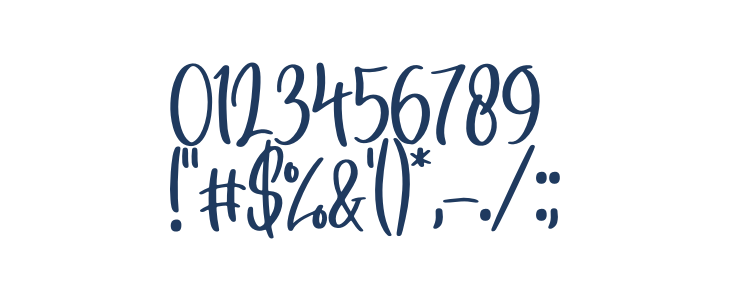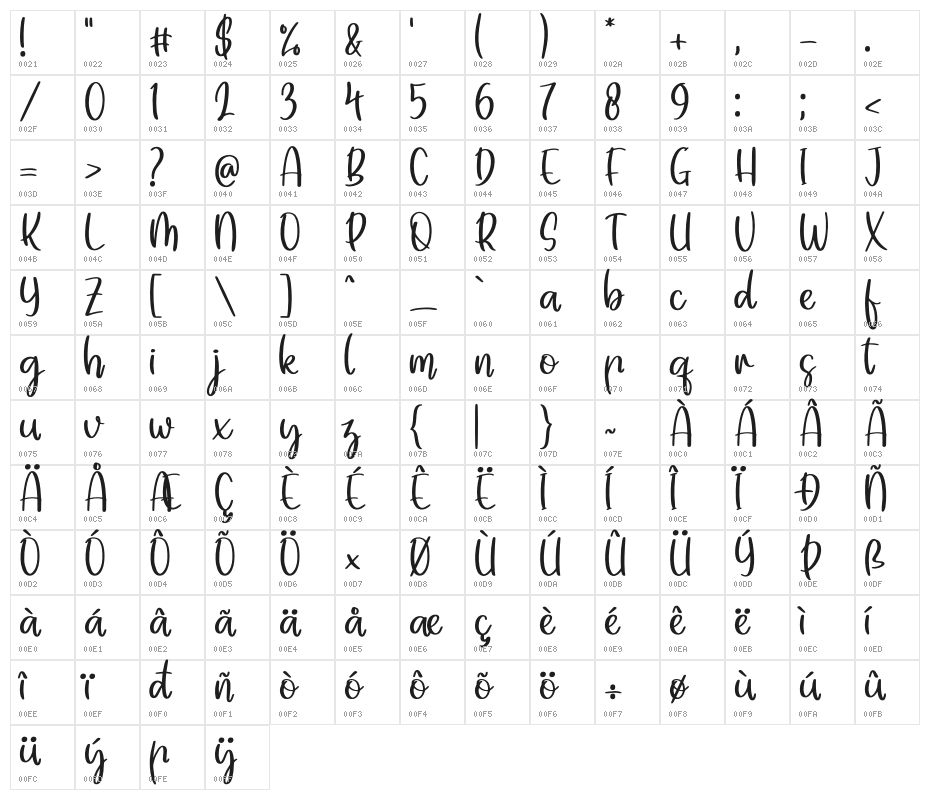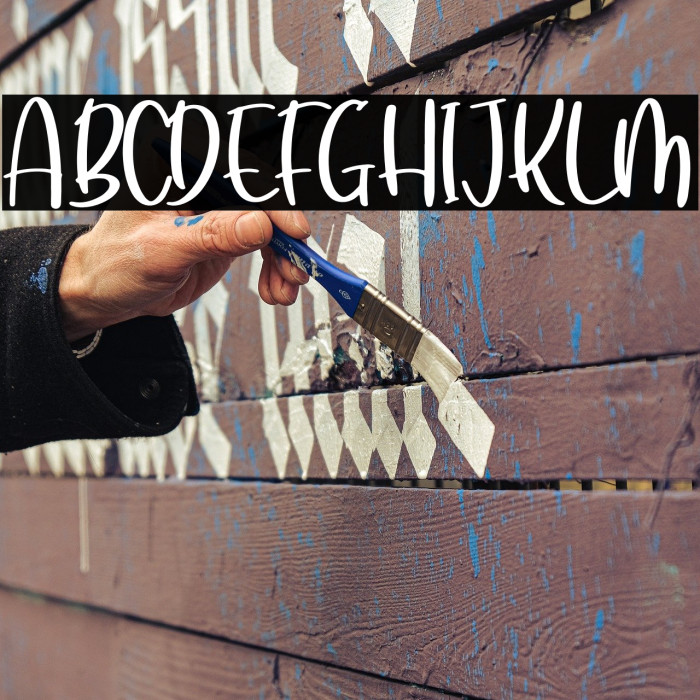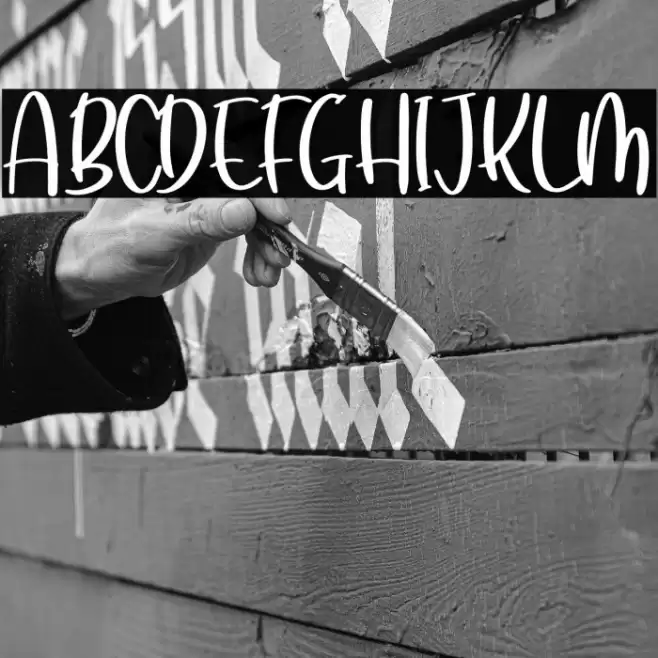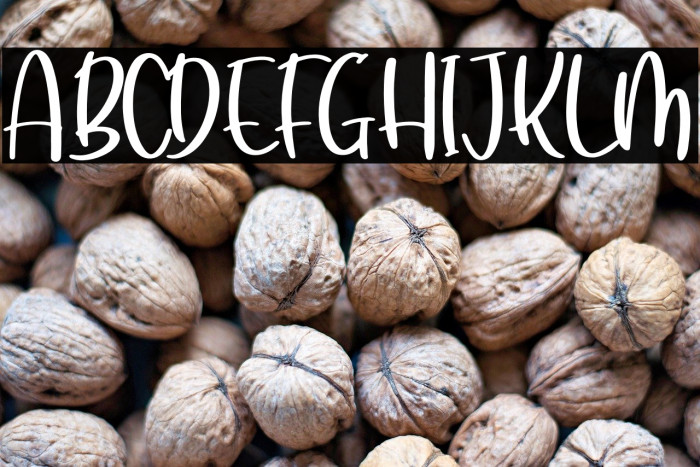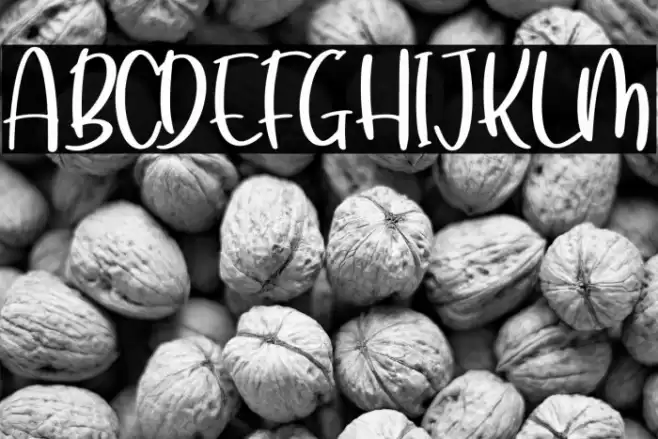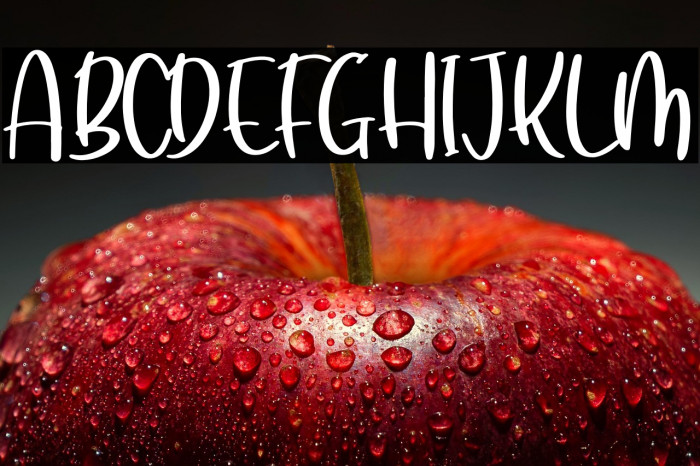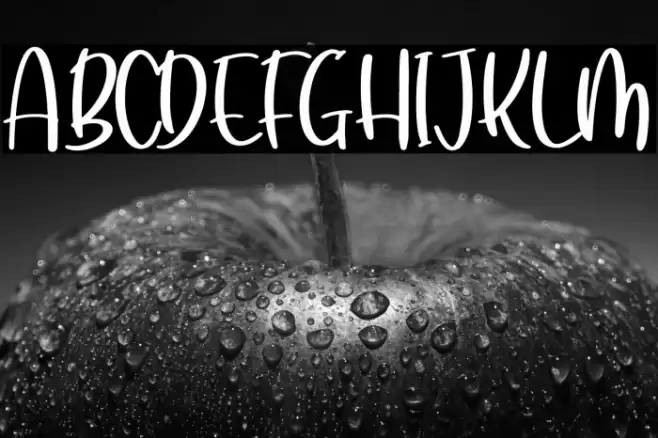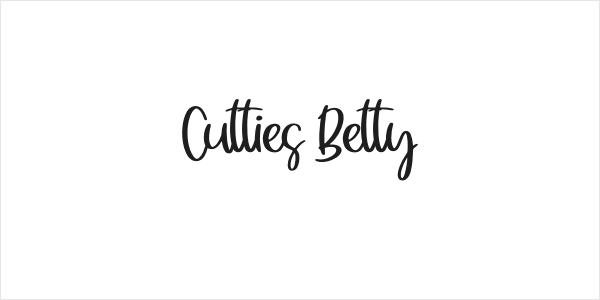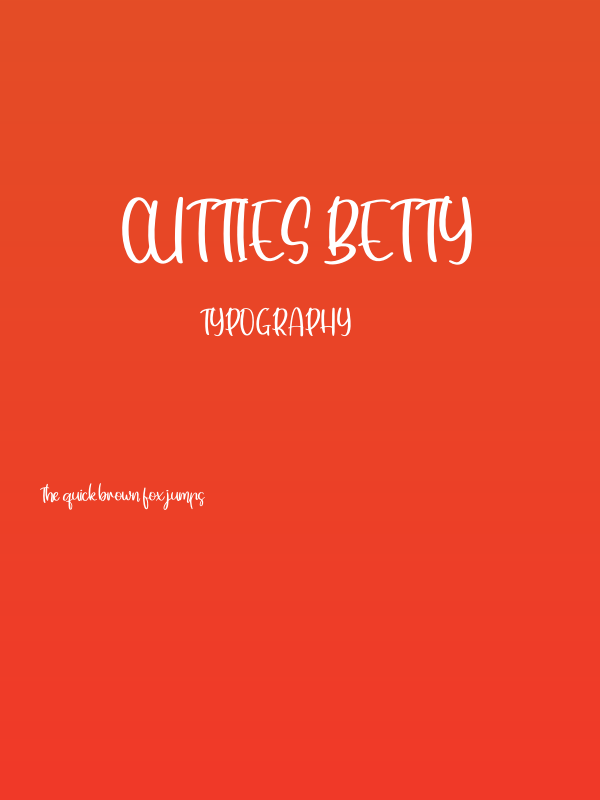
Cutties Betty Font
Cutties Betty Description
This playful and whimsical font features a handwritten style with a lively and energetic appearance. The letters are characterized by their smooth, flowing curves and slightly irregular shapes, giving them a personal and informal feel. The uppercase and lowercase letters maintain a consistent style, with the uppercase being slightly taller and more pronounced. The numbers and special characters follow the same playful design, making the font versatile for various creative projects. Its unique style is perfect for adding a personal touch to any design.
| Proposed Projects | Ideal for greeting cards, invitations, children's books, and playful branding projects. |